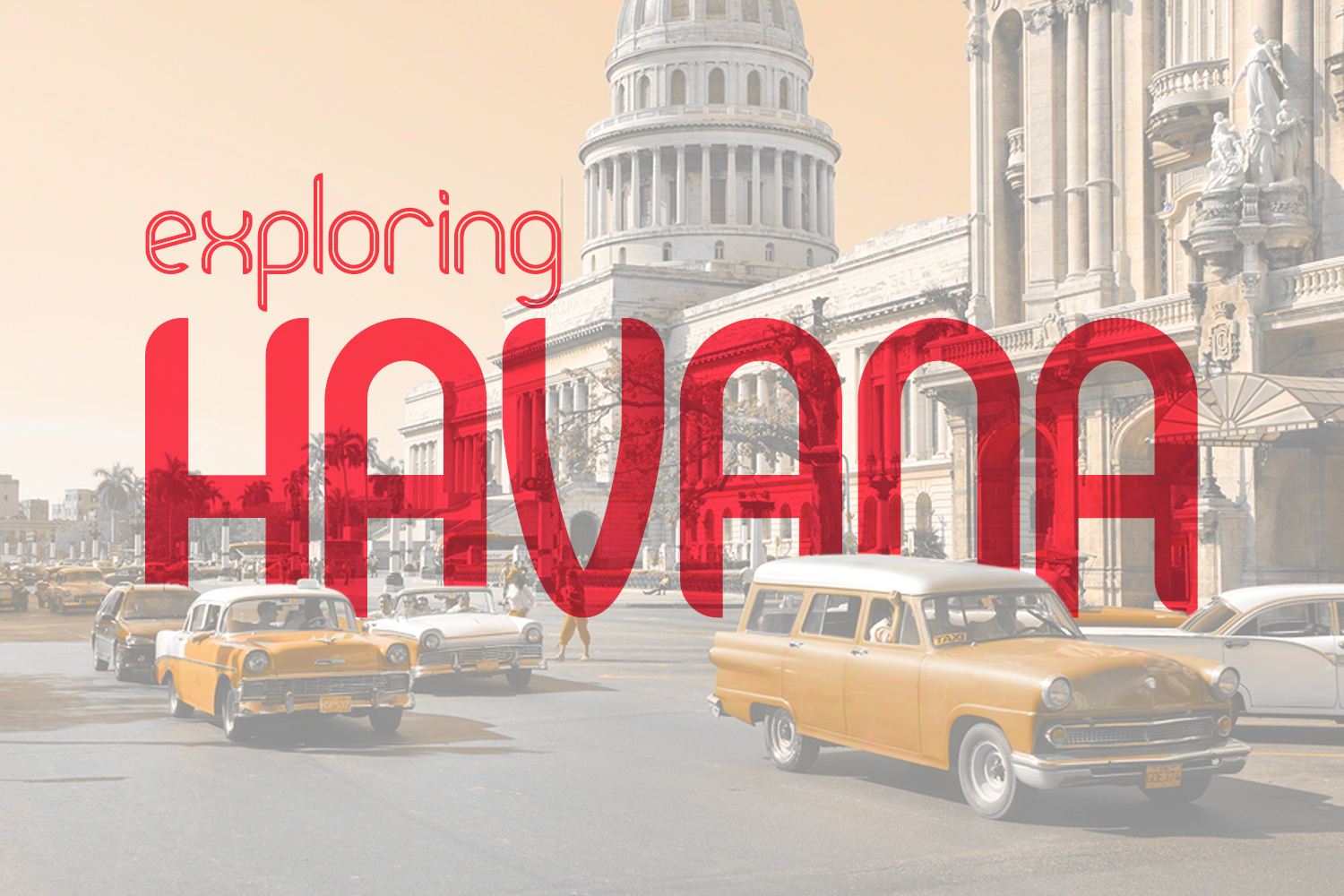
Pierce Typeface
Really excited to introduce Pierce is a bold typeface with two style solid and inline font files and makes this font suitable for your any your project design.